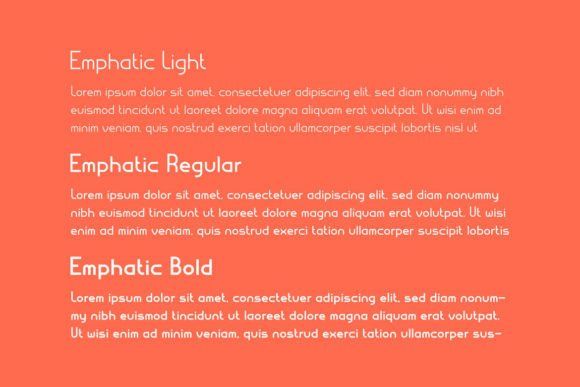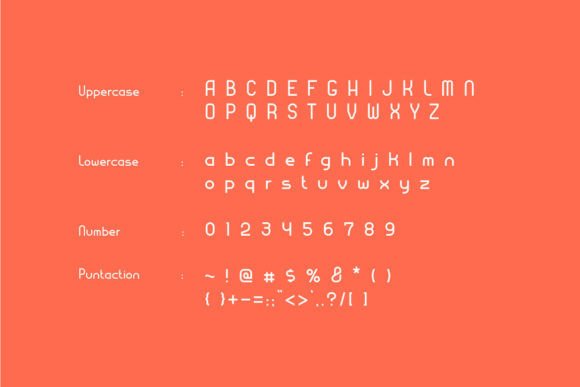
Introducing Emphatic Font: Elevate Your Designs with Elegance and Modernity
In the world of design, typography plays a crucial role in conveying messages, evoking emotions, and creating visual identities. For designers and crafters seeking a font that embodies elegance, modernity, and versatility, Emphatic Font is an excellent choice. This stunning sans serif font is designed to elevate your designs, whether you’re working on book covers, magazines, social media posts, invitations, or any other creative project.
The Essence of Emphatic Font
Emphatic Font is characterized by its minimalist and clean vibe, making it an ideal choice for designers who appreciate simplicity and sophistication. The font’s sans serif design ensures that your text remains clear and legible, even at smaller sizes, while its elegant curves and lines add a touch of refinement to your designs.
Key Features of Emphatic Font
- Elegant and Modern Design: Emphatic Font boasts a sleek and contemporary design that will instantly elevate your projects.
- Minimalist and Clean Vibe: The font’s simplicity ensures that your text remains clear and uncluttered, making it perfect for a wide range of applications.
- Versatility: Emphatic Font can be used for various design projects, including book covers, magazines, social media posts, invitations, and more.
- Easy to Read: The font’s clear and legible design ensures that your text is easy to read, even at smaller sizes.
Design Applications for Emphatic Font
Emphatic Font’s versatility makes it an excellent choice for various design projects. Here are some ideas to get you started:
- Book Covers: Add a touch of elegance to your book covers with Emphatic Font, perfect for fiction, non-fiction, and poetry books.
- Magazines: Use Emphatic Font to create visually appealing magazine layouts, articles, and headlines.
- Social Media Posts: Elevate your social media presence with Emphatic Font, ideal for creating engaging posts, stories, and captions.
- Invitations: Create beautiful and sophisticated invitations for weddings, parties, and other events using Emphatic Font.
- Branding and Packaging: Use Emphatic Font to create a cohesive brand identity, perfect for logos, labels, and packaging design.
Tips for Using Emphatic Font Effectively
To get the most out of Emphatic Font, here are some tips to keep in mind:
- Experiment with Font Sizes: Play with different font sizes to create visual hierarchy and emphasize important text.
- Pair with Other Fonts: Combine Emphatic Font with other fonts to create a unique and visually appealing typography.
- Use Color Wisely: Select colors that complement Emphatic Font’s elegant design, and use them consistently throughout your design.
Emphatic Font is an excellent choice for designers and crafters seeking a modern, elegant, and versatile font for their creative projects. With its minimalist and clean vibe, Emphatic Font can elevate your designs and help you create stunning visual identities. Whether you’re working on book covers, magazines, social media posts, or invitations, Emphatic Font is sure to impress.